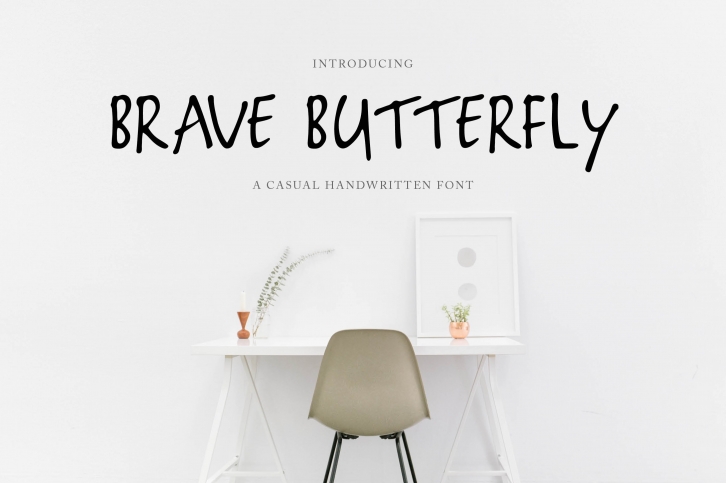
Introducing: Brave Butterfly, a casual handwritten font.
Brave Butterfly is a marker font created to be playful and bouncy, yet bold and clearly legible. The font includes all basic punctuation as well as some fun catchwords and phrases to add a little extra to your designs.
Brave Butterfly is perfect to use on corporate branding, stationary, advertisements, magazine layouts, inspirational quotes and much more.